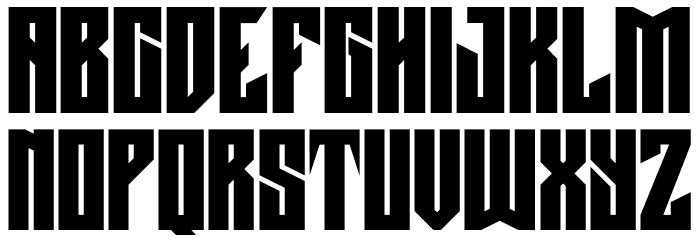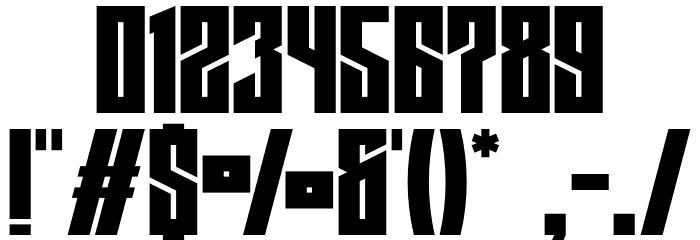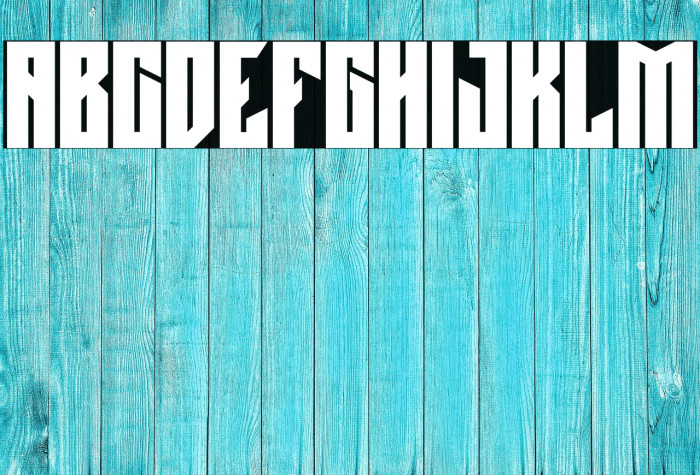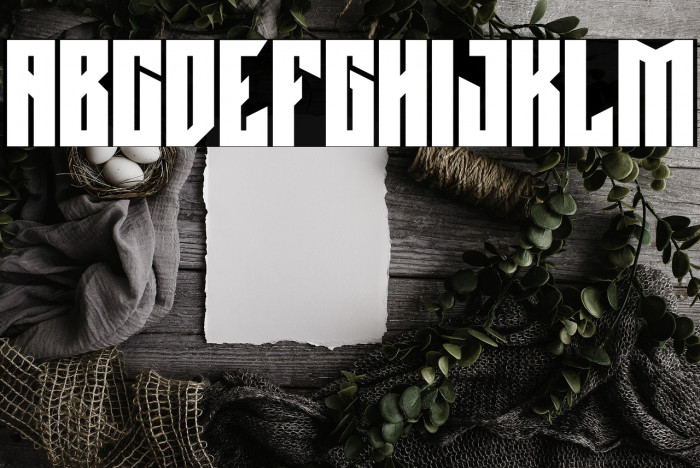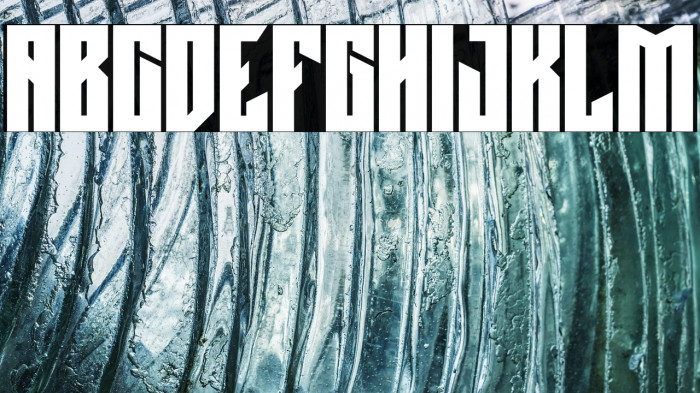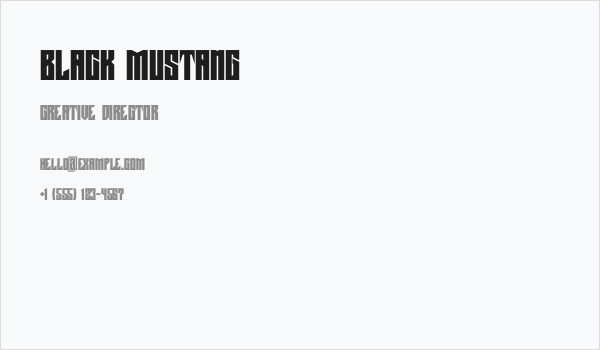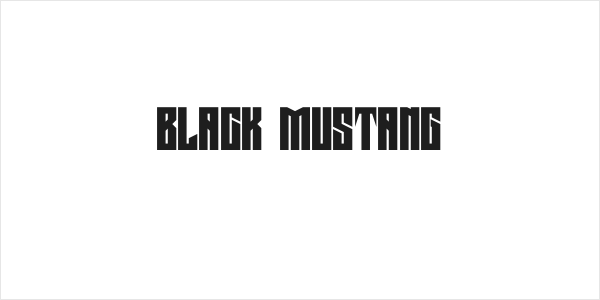
Black Mustang Font
This font features a bold and striking design with a strong geometric influence. The characters are tall and narrow, with sharp angles and a blocky appearance that conveys a sense of power and modernity. The uppercase letters are particularly prominent, each with a unique angular cut that adds to the overall dynamic feel. The numbers and special characters maintain this bold style, ensuring consistency across all elements. The font's heavy weight and high contrast make it ideal for impactful headlines and titles, where attention-grabbing aesthetics are crucial.
A bold, geometric font with sharp angles and high contrast.
- Font: Black Mustang
- Proposed Projects: Ideal for branding, posters, and any design requiring a strong, modern impact.
- Character Spacing: Tight